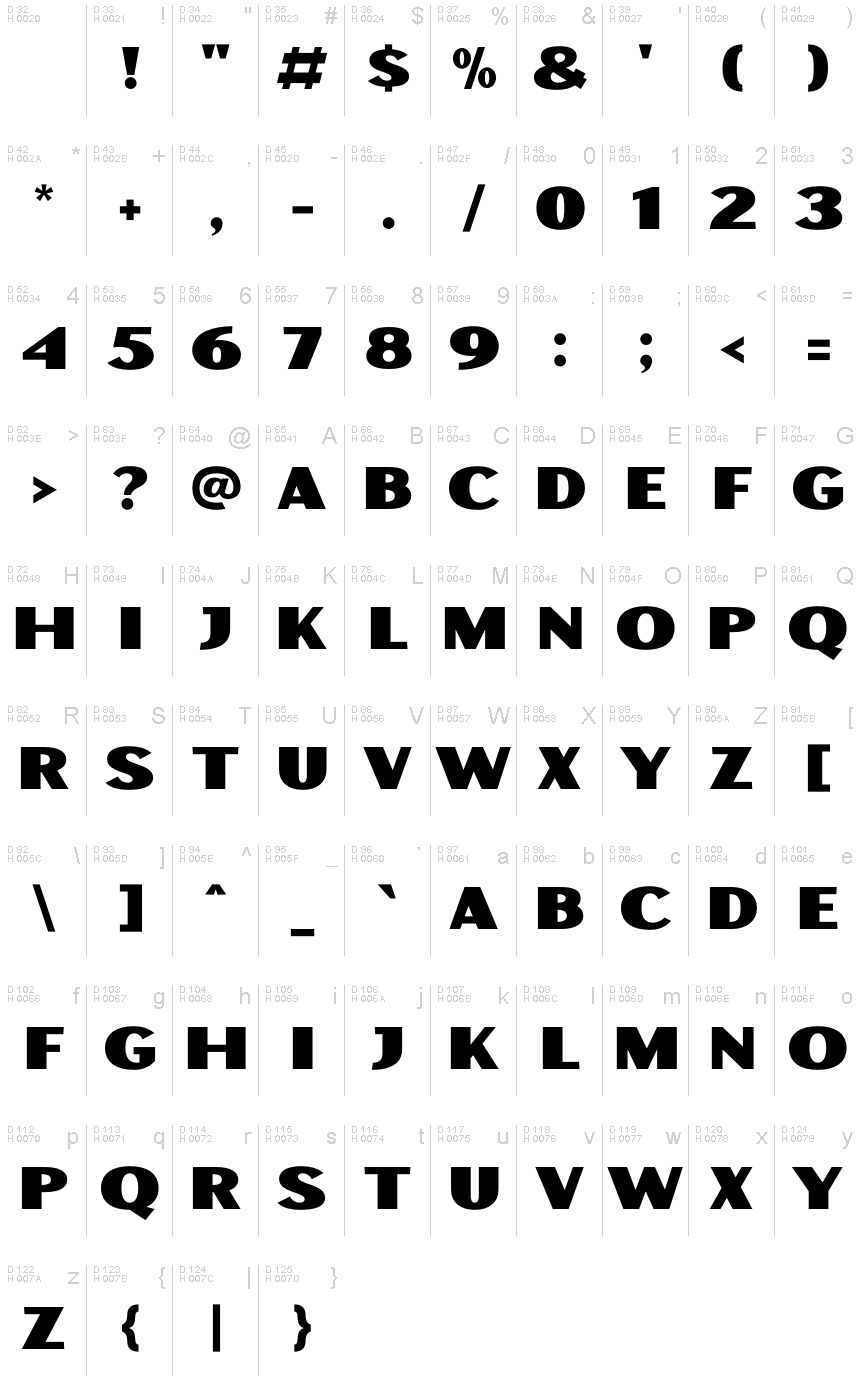
Morebig Sans
Morebig Sans - a bold and unapologetic font that demands attention. Its expanded width exudes a sense of grandeur, while the sans-serif design lends it a modern, minimalist flair.
This striking typeface is crafted to make a statement, whether adorning the masthead of a sleek magazine or anchoring the title of a powerful documentary. Morebig Sans is a versatile choice for designers seeking to create impactful visual narratives, from attention-grabbing headlines to strong branding elements. Its bold presence can elevate any project, lending an air of confidence and authority.
Embrace the uncompromising essence of Morebig Sans and let it become the centerpiece of your next design endeavor, where impact and elegance converge.